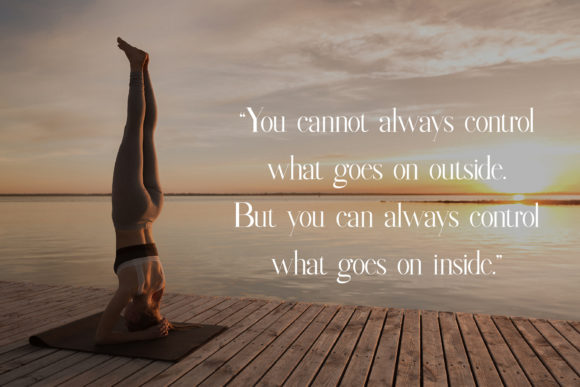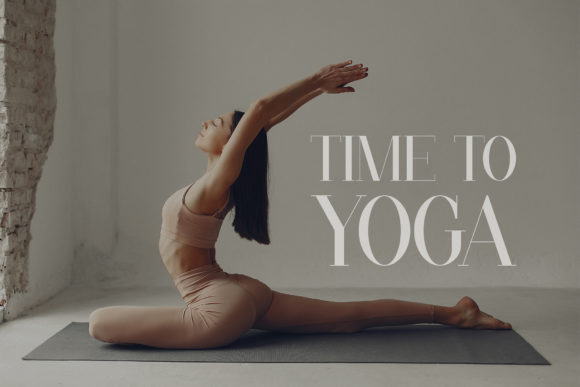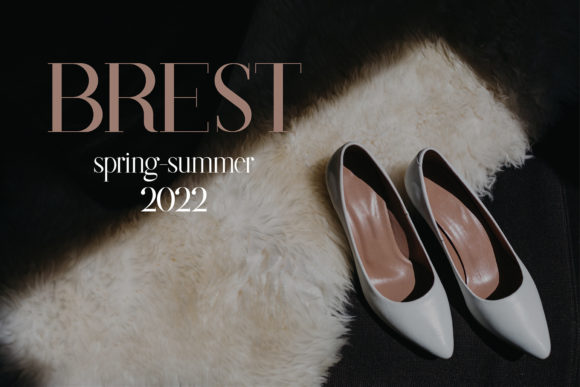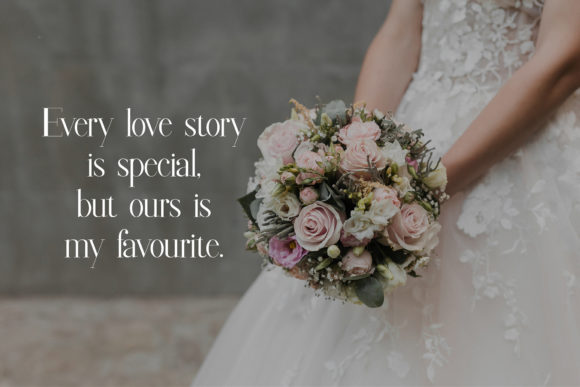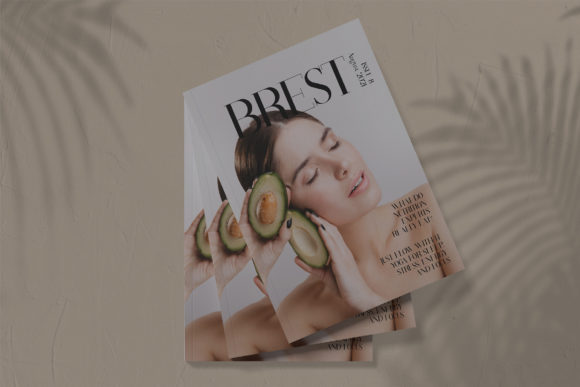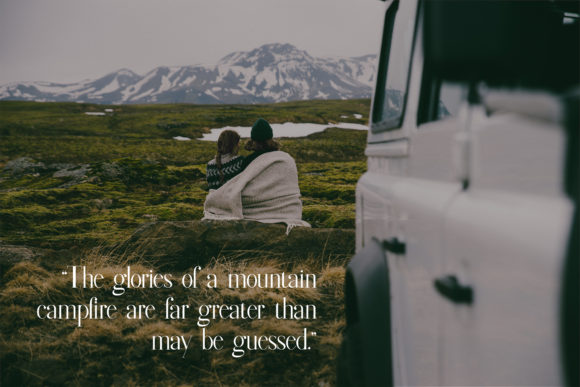
Brest Font: Elevate Your Designs with Luxurious Elegance
Are you tired of using the same old fonts in your designs? Look no further than Brest Font, a luxurious and elegant serif font that’s sure to take your creations to the next level. With its natural and unique style, Brest Font is incredibly versatile and can be used in a wide range of designs, from sophisticated editorials to beautiful branding materials.
The Characteristics of Brest Font
Brest Font is a serif font, which means it features small lines or flourishes at the ends of the letters. This classic design element gives Brest Font a timeless and sophisticated feel that’s perfect for designs that require a touch of elegance. The font’s serif lines are carefully crafted to create a sense of fluidity and movement, making it easy to read and visually appealing.
One of the standout features of Brest Font is its unique style, which sets it apart from other serif fonts on the market. The font’s letters are carefully designed to have a natural, hand-crafted feel that’s both luxurious and refined. Whether you’re using Brest Font for a high-end fashion brand or a sophisticated editorial, it’s sure to add a touch of class and sophistication to your design.
The Benefits of Using Brest Font
So why choose Brest Font for your next design project? Here are just a few benefits of using this luxurious and elegant font:
- Versatility: Brest Font is incredibly versatile and can be used in a wide range of designs, from editorials and magazines to branding materials and packaging.
- Elegance: The font’s serif lines and natural style give it a sophisticated and elegant feel that’s perfect for high-end designs.
- Readability: Brest Font is designed to be easy to read, making it perfect for body text and other large blocks of text.
- Uniqueness: Brest Font’s unique style sets it apart from other serif fonts on the market, making it a great choice for designers who want to create something truly original.
How to Use Brest Font in Your Designs
Using Brest Font in your designs is easy. Here are a few tips to get you started:
- Pair it with a sans-serif font: Brest Font pairs beautifully with sans-serif fonts, which can add a nice contrast to your design.
- Use it for headings and titles: Brest Font’s elegant style makes it perfect for headings and titles, where it can add a touch of sophistication and class.
- Experiment with different colors: Brest Font looks great in a wide range of colors, from rich blacks and dark grays to elegant golds and metallics.
Inspiration for Using Brest Font
Still not sure how to use Brest Font in your designs? Here are a few ideas to get you started:
- Fashion branding: Brest Font’s luxurious and elegant style makes it perfect for high-end fashion brands.
- Editorials and magazines: The font’s classic design and sophisticated feel make it a great choice for editorials and magazines.
- Wedding and event design: Brest Font’s elegant style makes it perfect for wedding and event designs, where it can add a touch of sophistication and romance.
Brest Font is a luxurious and elegant serif font that’s perfect for designers who want to add a touch of sophistication and class to their designs. With its natural and unique style, Brest Font is incredibly versatile and can be used in a wide range of designs. Whether you’re creating a high-end fashion brand or a sophisticated editorial, Brest Font is sure to elevate your design and leave a lasting impression.